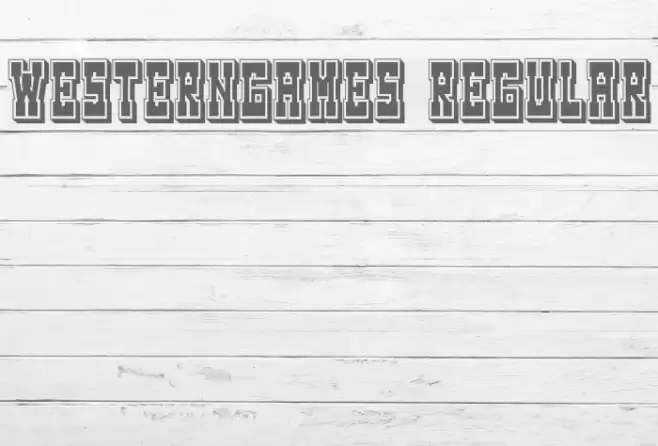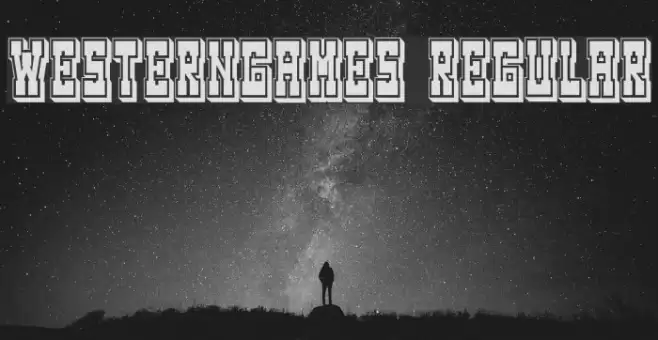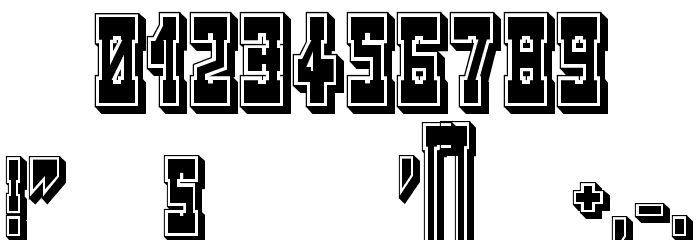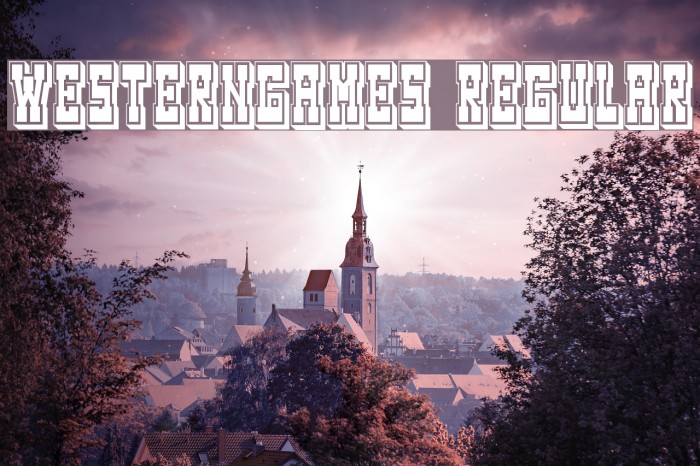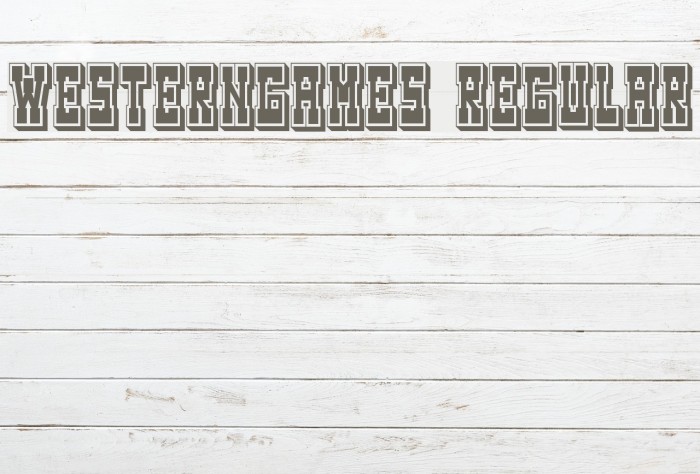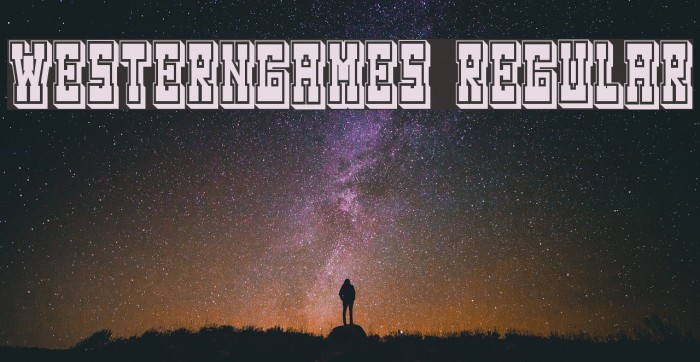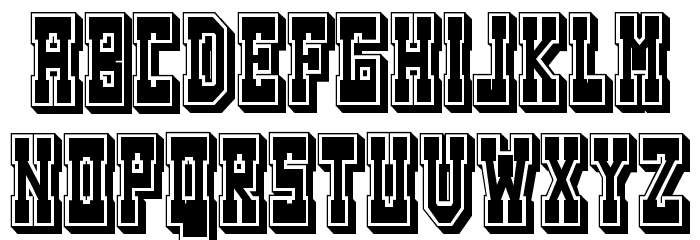
Westerngames Regular Font
Westerngames Regular Description
This font features a bold, blocky style with a strong Western theme. The characters are outlined with a thick border, giving them a three-dimensional appearance. The design is highly decorative, with intricate details that evoke a sense of ruggedness and adventure. The uppercase letters are particularly striking, with sharp angles and a solid presence. The numbers and special characters maintain the same bold and detailed aesthetic, ensuring consistency across all elements.
A bold, decorative font with a Western theme and three-dimensional appearance from Uncategorized fonts.
- Proposed Projects: Ideal for Western-themed posters, event flyers, video game titles, and branding that requires a strong, adventurous look.